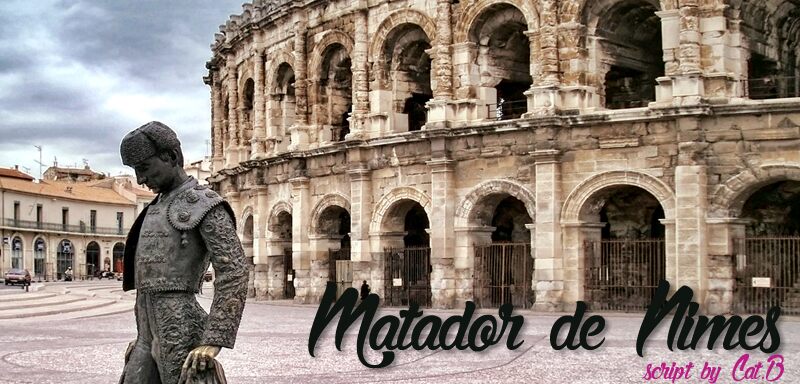
Matador de Nimes
Matador de Nimes is a captivating handwritten font designed by Cataleya Butcher, showcasing a dynamic and expressive aesthetic. The script's fluid strokes and organic flourishes evoke a sense of artistry and passion, making it an excellent choice for branding, packaging, and editorial design.
The font's bold, commanding presence is accentuated by its unique character shapes and ligatures, which add depth and personality to any text. Its versatility allows it to seamlessly transition between formal and casual applications, making it a versatile tool for designers seeking to create compelling visual narratives.
Matador de Nimes is an ideal font for projects requiring a distinctive, handcrafted feel, such as event invitations, product labels, and marketing materials. Its expressive qualities can also be harnessed to enhance the visual impact of book covers, album art, and other creative endeavors where a touch of artistic flair is desired.